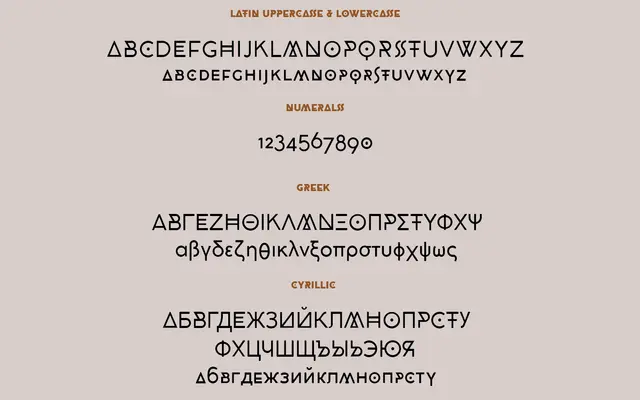
Cocobiker
Zetafonts · Cosimo Lorenzo Pancini · 2015
A display small caps variant of the Coco Gothic family, built on geometric proportions with a runic character and interconnected letterforms.
Part of the wider Coco Gothic family, this typeface applies a runic mood and tightly connected geometry to a small caps structure designed primarily for display settings. Five weights run from Ultralight to Heavy, and 634 glyphs cover Latin, Greek and Cyrillic across 205 languages, with OpenType support for ligatures and special symbols. The positioning towards cycling and subculture aesthetics gives it a narrow niche, though the weight range and script coverage add practical breadth.
Designed as a display small caps typeface with geometric proportions, runic mood and ultraconnected geometry; it draws from contemporary grotesque conventions but is configured for display use rather than running text.